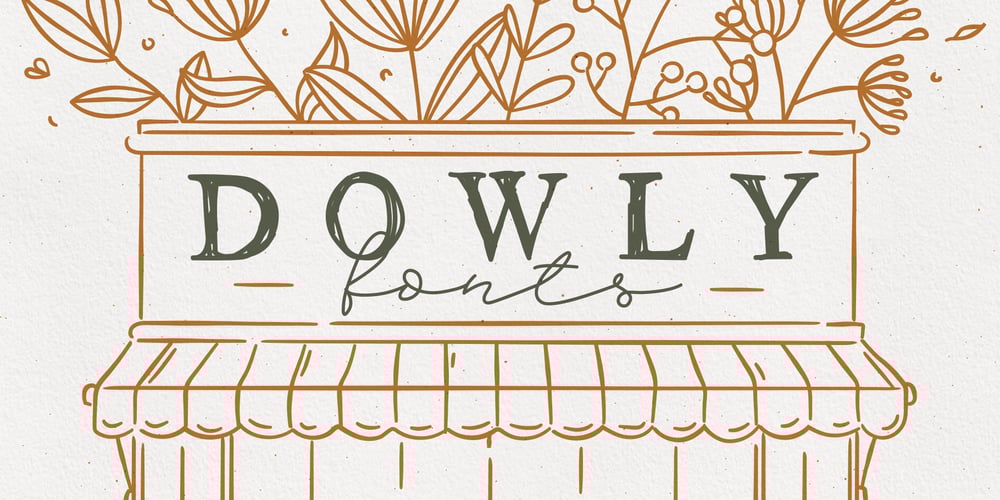
Dowly
Dowly font
Dowly Font Family was designed by Anna Kozlenko and published by Anna Kozlenko. Dowly contains 4 styles and family package options. Dowly Family is a handwritten font with a calligraphy flair, ideal for creating handwritten-style logos, wedding stationery, photographer watermarks logos, modern websites, and more.Create unique style for your business or personal use.Type the words and Add the unique shapes from Dowly Family to get a more stunning display.No special software is required for this typeface. But I recommend using Adobe Illustrator or Photoshop.How to access alternate? Adobe Photoshop go to Window – glyphs Adobe Illustrator go to Type – glyphs